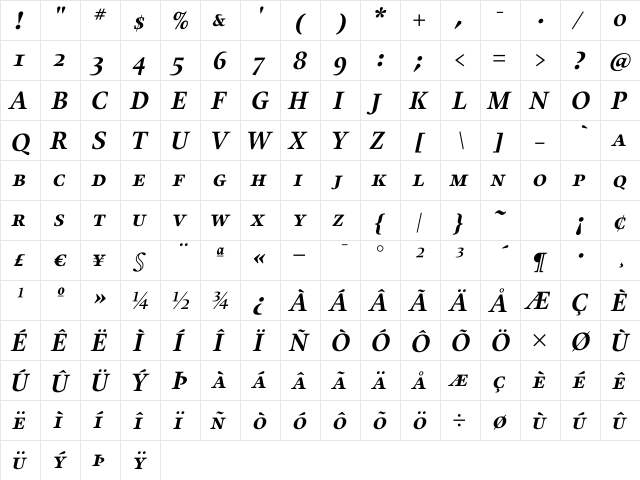
Alias UnionBold Italic SC Regular Font Preview
Design Context for Alias UnionBold Italic SC Typeface
Alias UnionBold Italic SC is a composed and adaptable typeface that performs quietly and consistently across a wide range of design contexts. The dynamic lean of this cut emphasises speed and emphasis in any layout. Its bold stroke weight gives it real presence on the page.
Pro Tip: Try Alias UnionBold Italic SC for annotation and caption copy alongside an upright companion — the contrast in angle creates a dynamic but ordered typographic system.